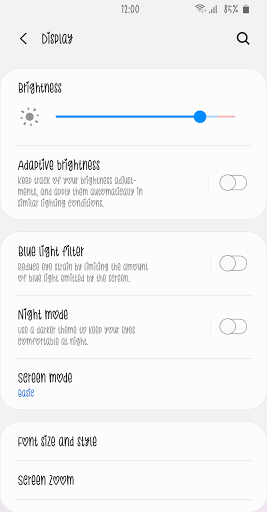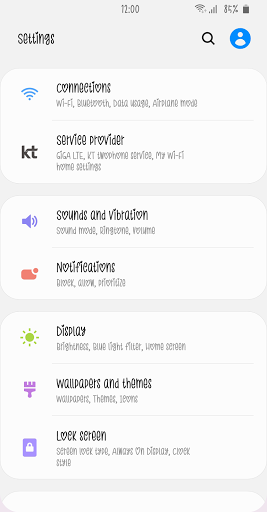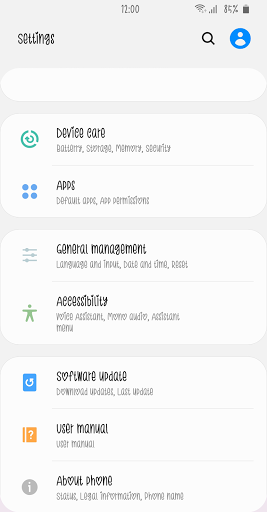
Nm LoveBirds™ Latin Flipfont
Nm LoveBirds™ Latin Flipfont is a lovely and cute font and has good readability. Customize your phone with LoveBirds. Please try this font and leave your feedback.